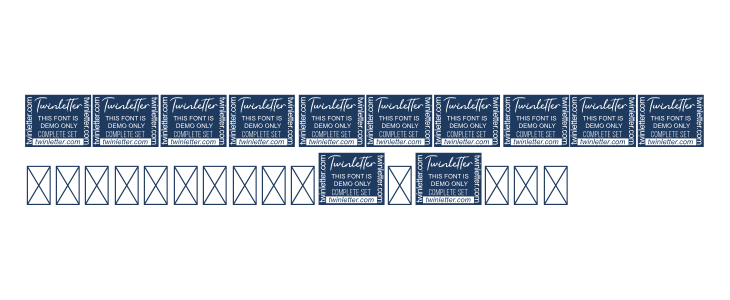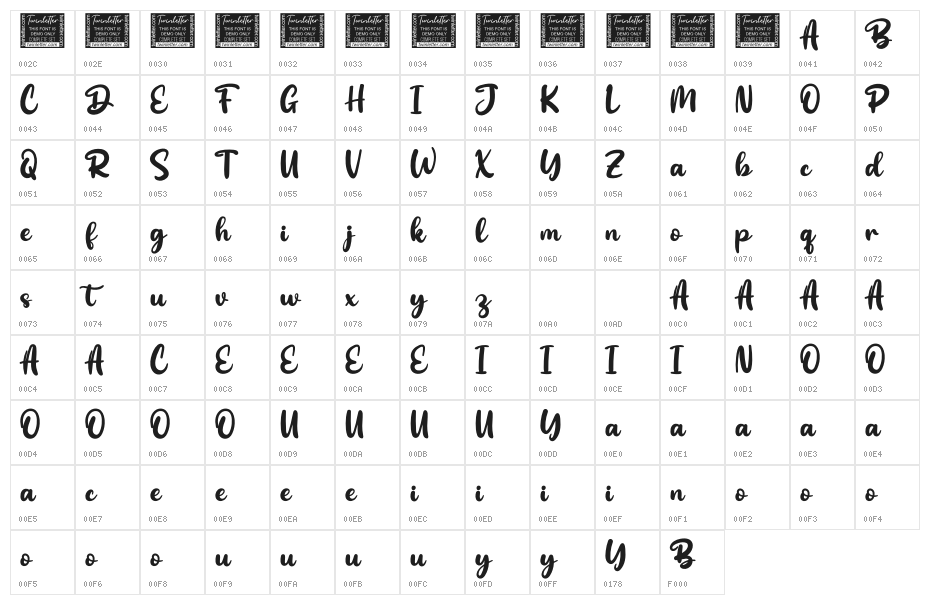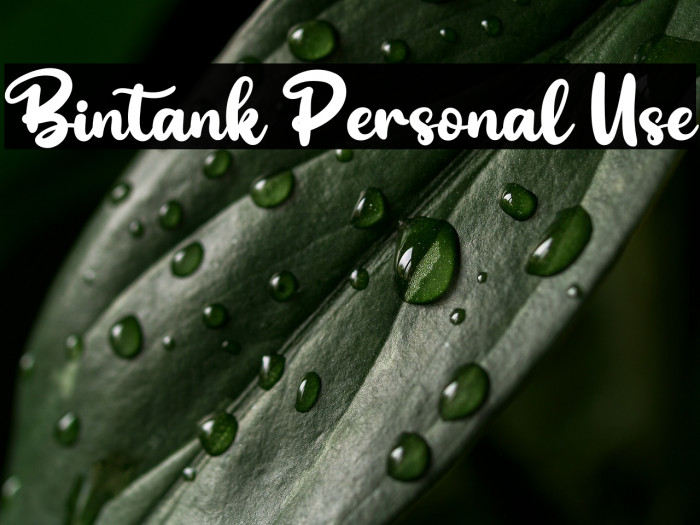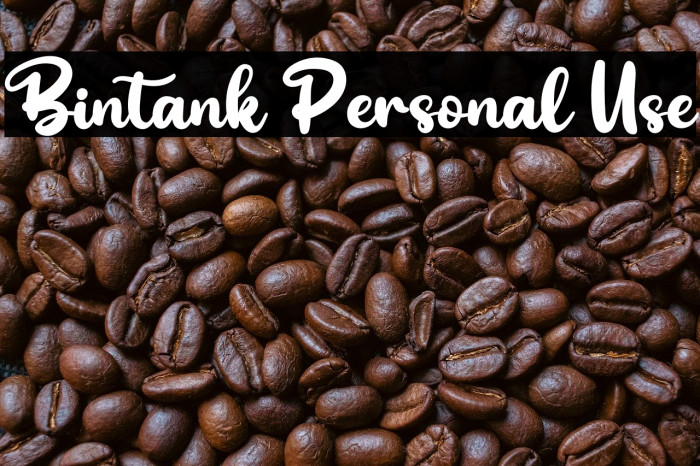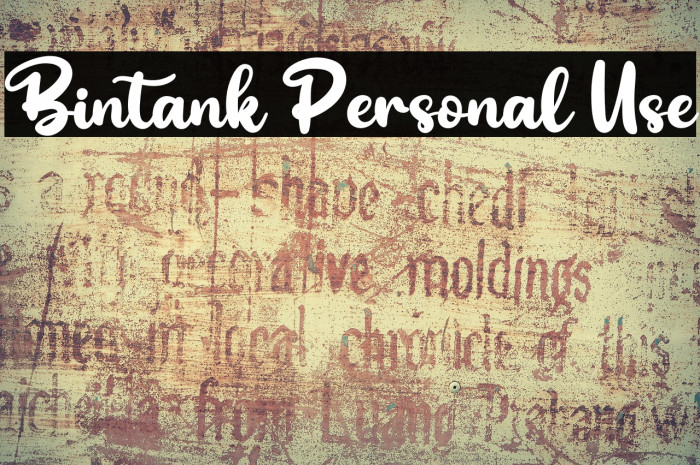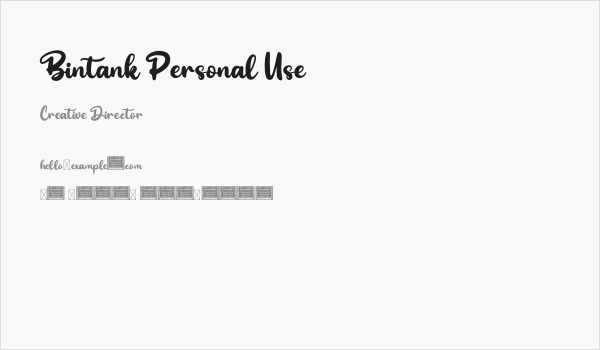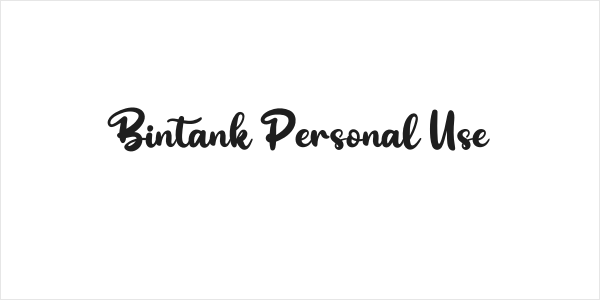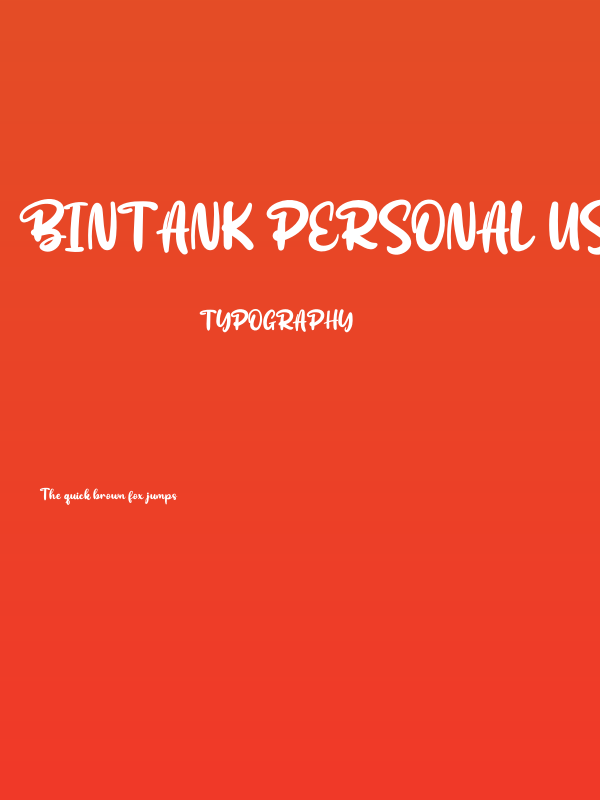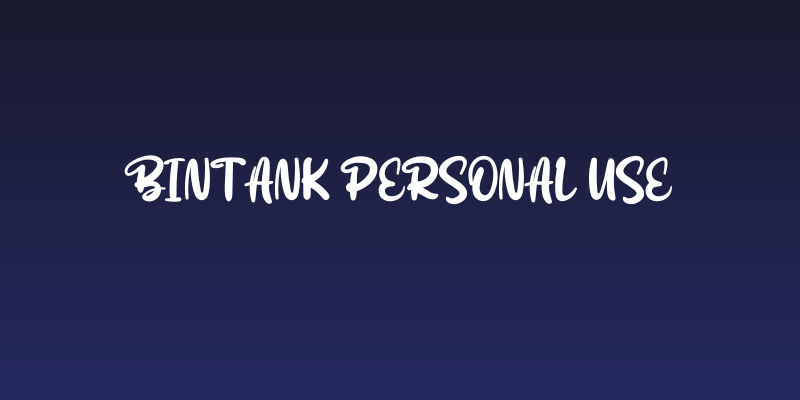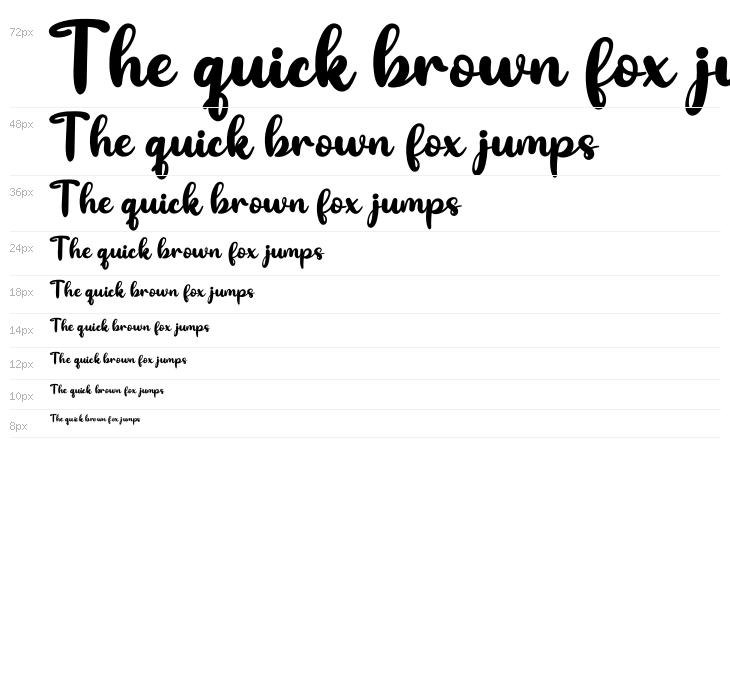
Bintank Personal Use Font
Bintank Personal Use Description
This font features a bold and expressive script style with a handwritten feel. The uppercase letters are characterized by their flowing, connected strokes, giving a sense of movement and elegance. The lowercase letters maintain this fluidity, with some letters featuring distinctive loops and swashes that add to the overall charm. The numerals are consistent with the script style, maintaining readability while complementing the alphabetic characters. Special characters are designed to match the font's playful and artistic aesthetic, making it suitable for creative and decorative purposes.